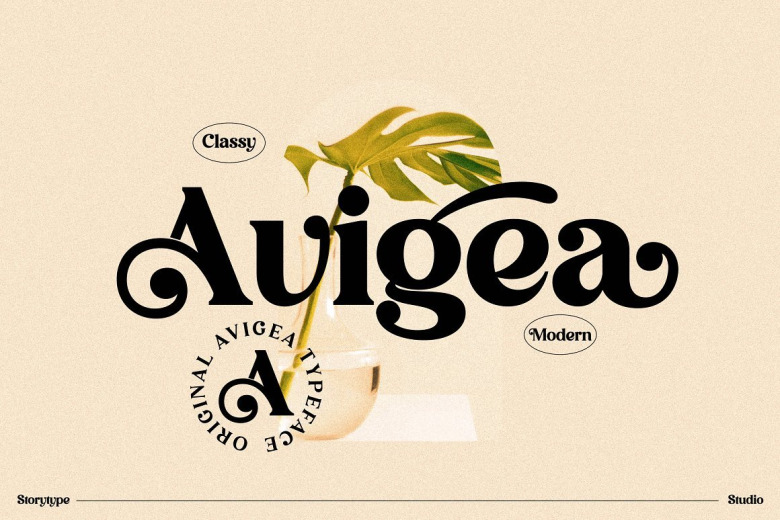
Avigea Font
Avigea Serif Font
Avigea typeface is a unique serif with classy and classic look. It’s designed and shared by Storytype Studio. Avigea is perfect for an elegant & luxury logo, book or movie title design, fashion brand, magazine, clothes, lettering, quotes, and so much more.